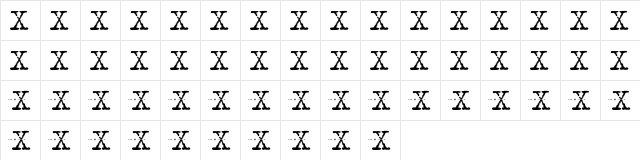
XFont Regular
Design Context for XFont Typeface
XFont is a composed and adaptable typeface that performs quietly and consistently across a wide range of design contexts.